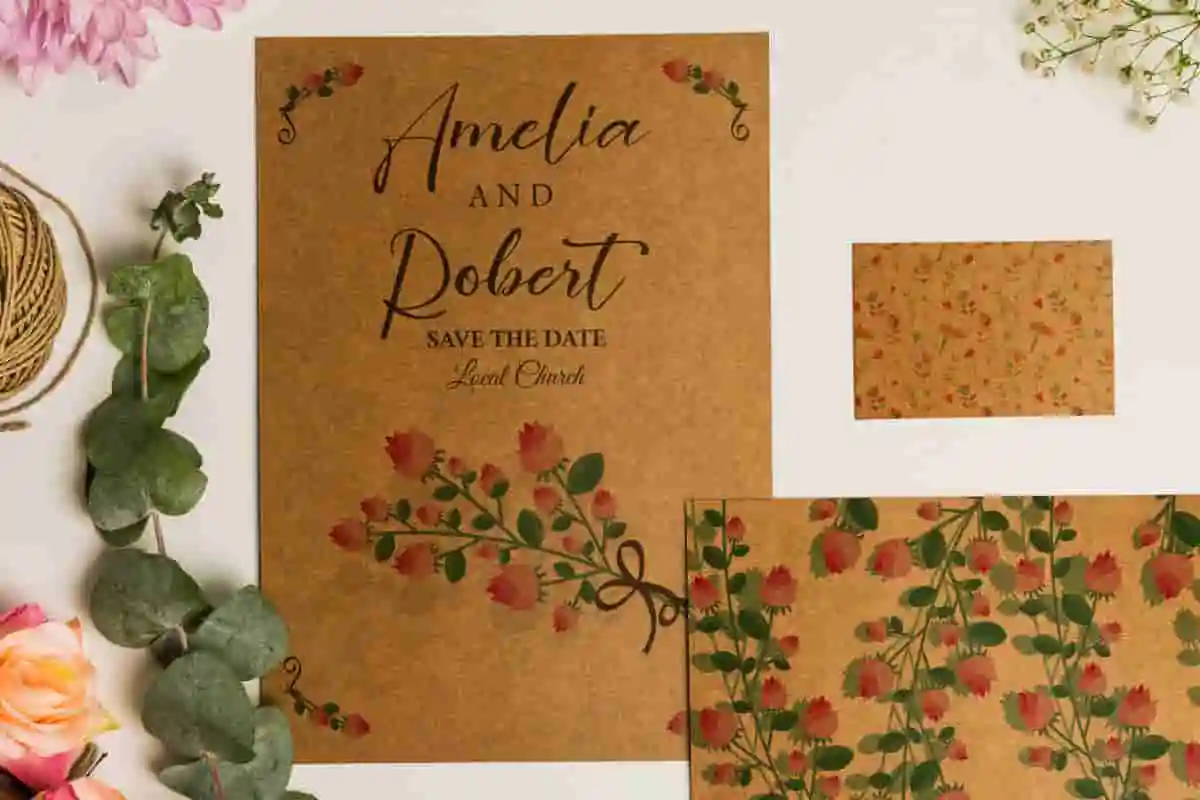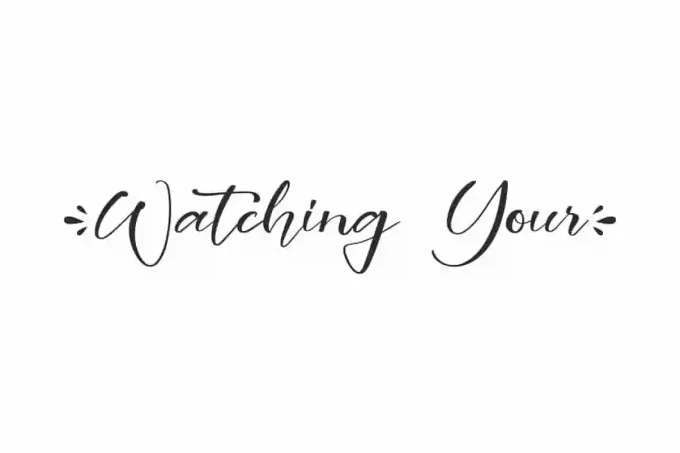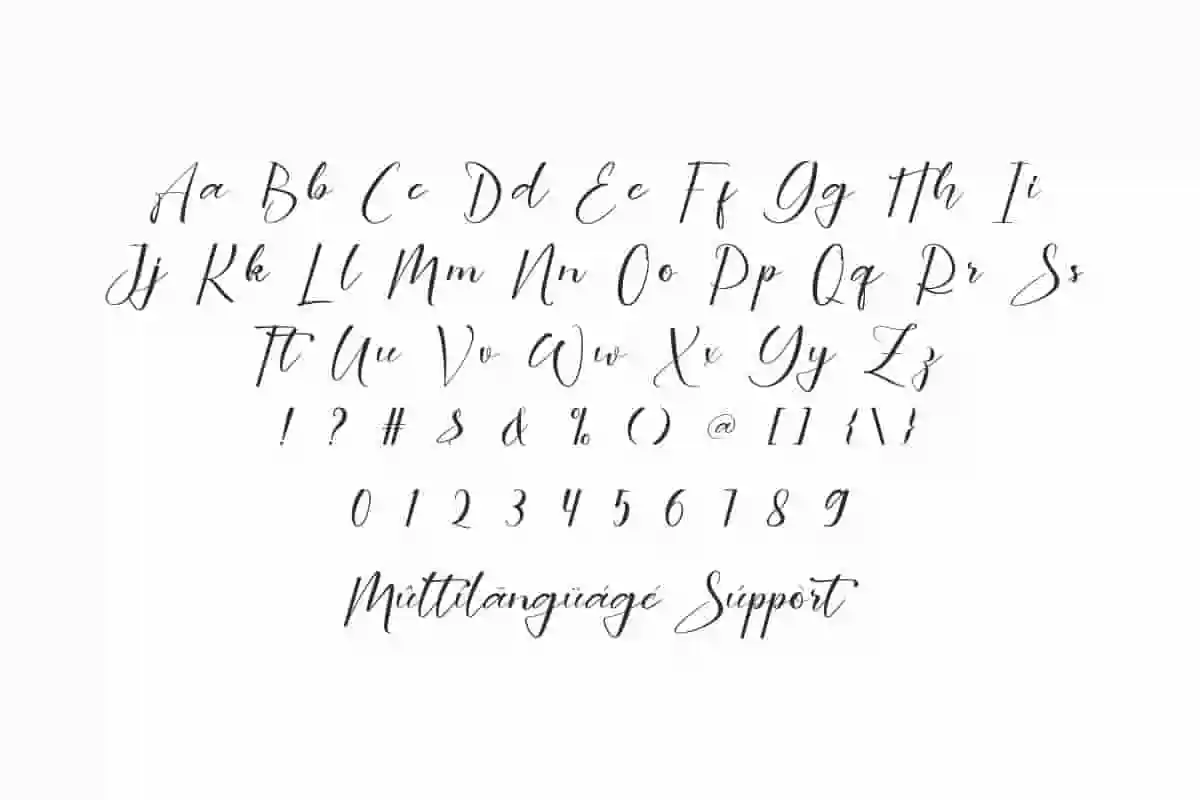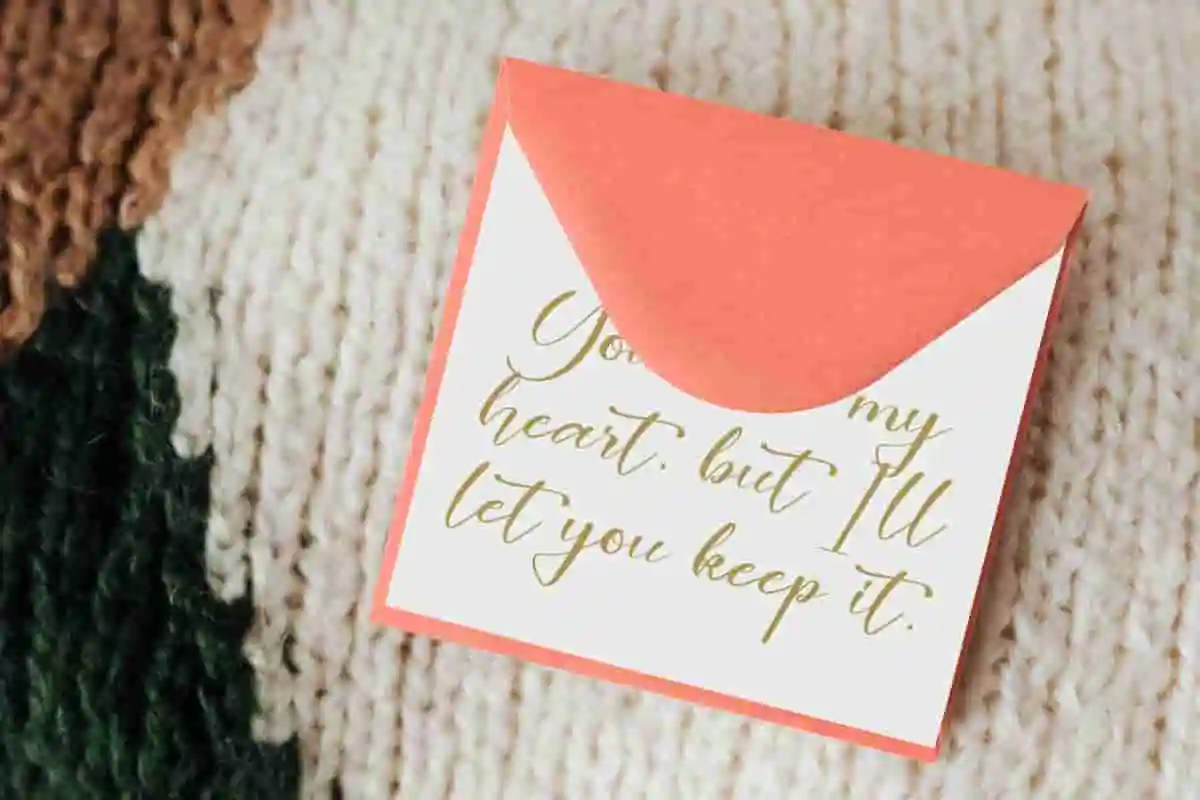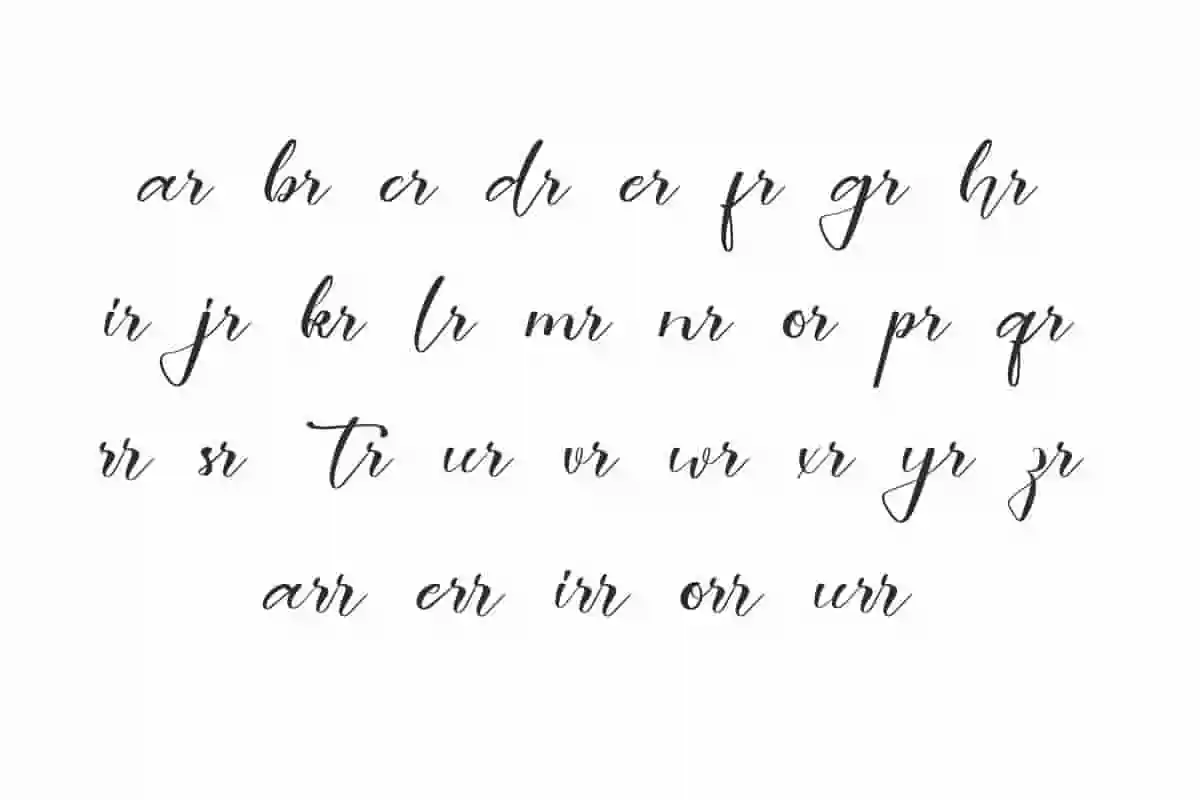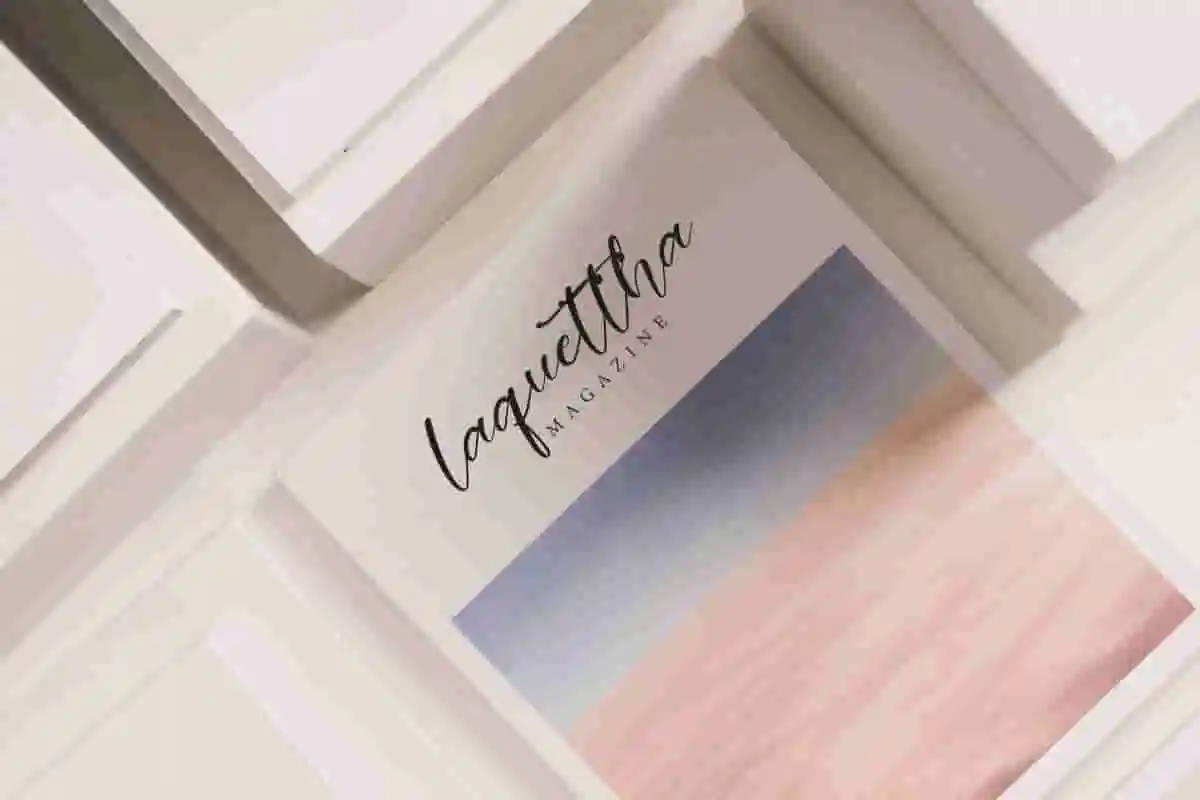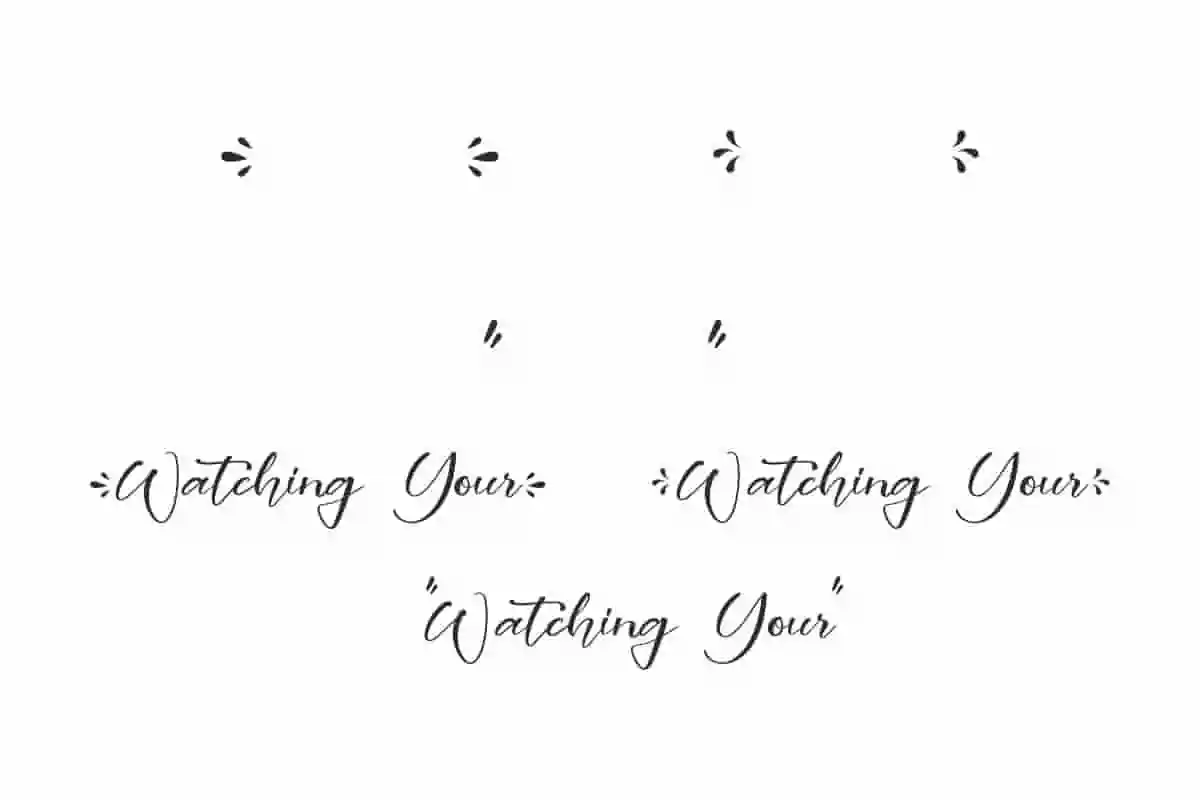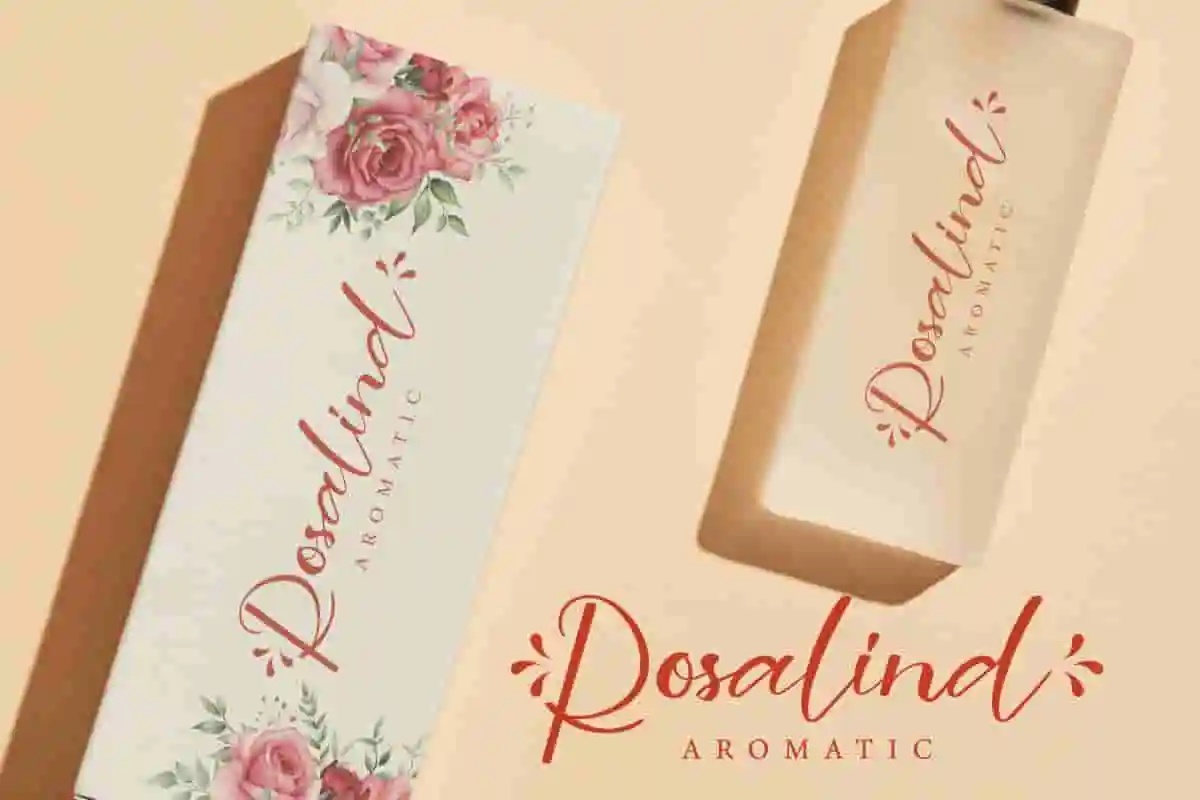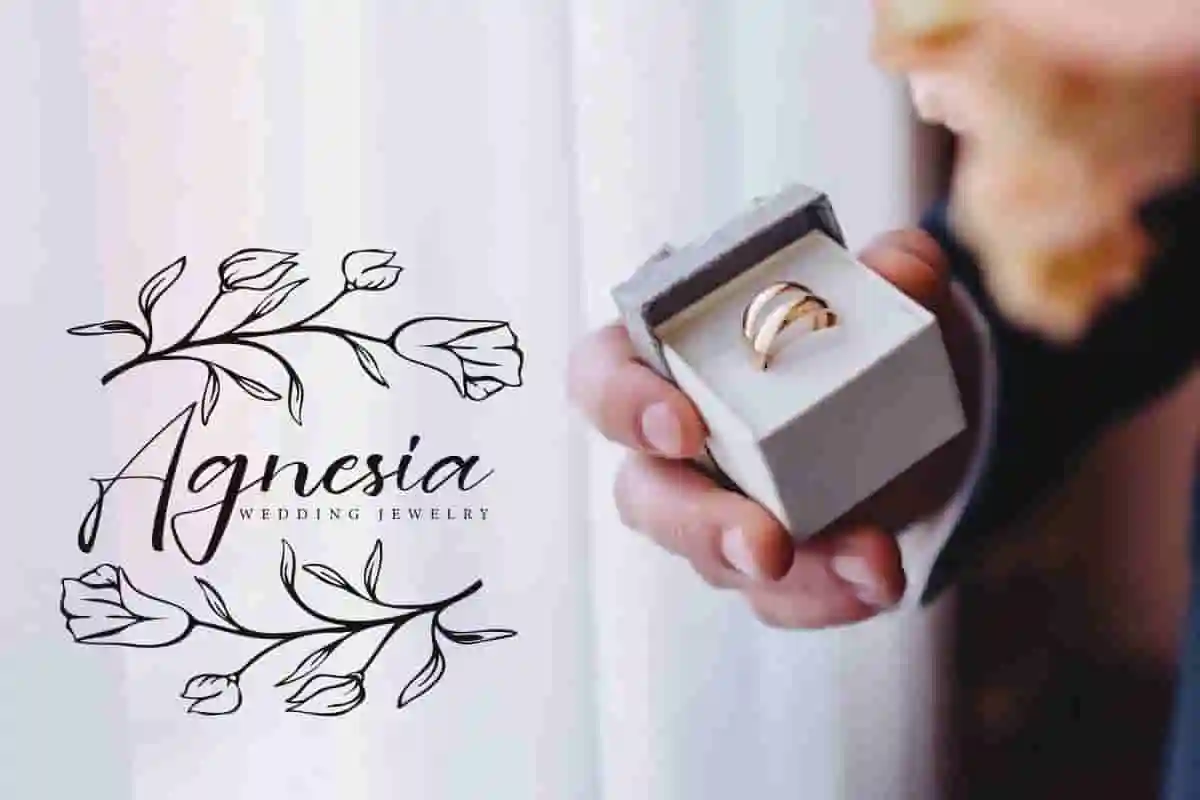
Watching Your Font is a sleek script font with a touch of art from graceful calligraphy. It will make any look feel serene and timeless!
Watching Your Font is a beautiful and sleek script font with a touch of interesting graceful calligraphic look. It is able to bring a feminine feeling to every visual beauty of your design, such as blogs, brand logo, brochure, catalog, cover, flyer, header, invitation, label, mock up design, packaging design, quote, screen print, signage, stationery, sticker, thank you card, title, website, and many more!
Watching Your Font comes with a full set of Uppercase and Lowercase Basic Characters, Numbers, Punctuation, Symbols, additional characters such as Ligature and Swoosh to make this type of font a perfect complete that is able to enhance the quality of art. Use this for your business industry such as bridal boutique, event organizer, fashion designer, florist, furniture, gifts/souvenirs, handicraft, hotel, jewelry, perfumer, photography, printing, publishing, real estate, restaurant, skincare, spa salon, wedding, etc.